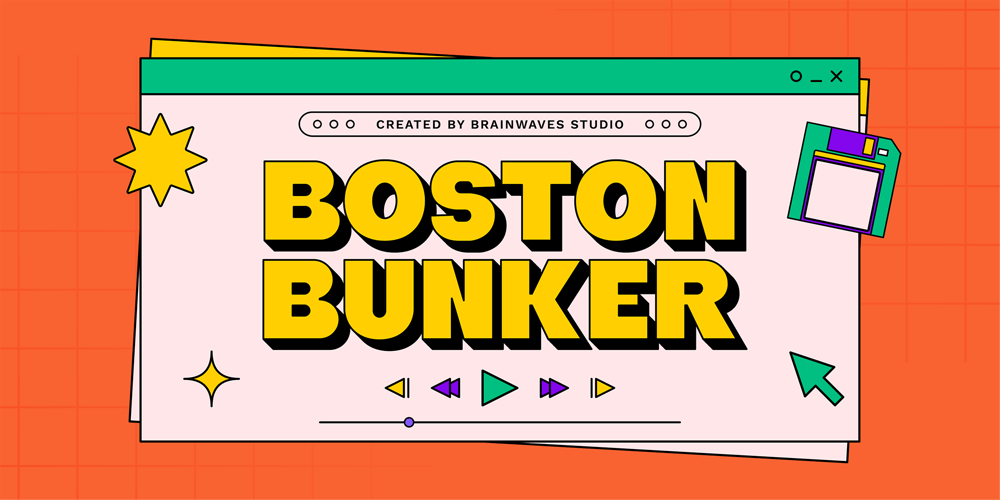
Boston Bunker Font Family was designed by Anggil Sukma and published by Brainwaves Studio. Boston Bunker contains 2 styles and family package options. This is our new font retro display boston bunker, boston had a taste of retro, bold, display, minimalist font. This font good for logotype, logo text, graphic design for retro theme.